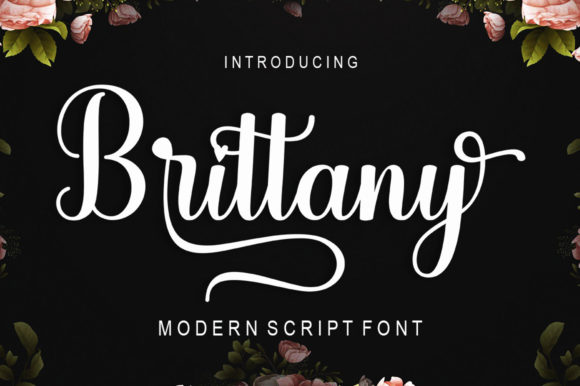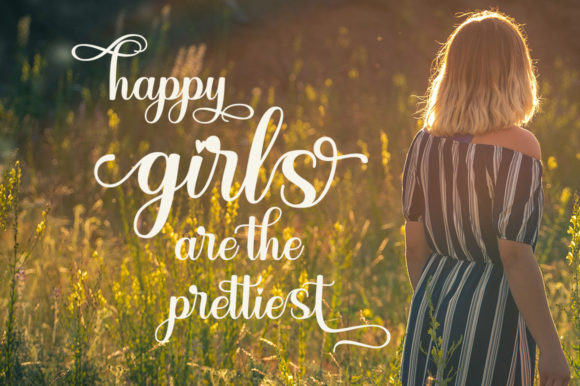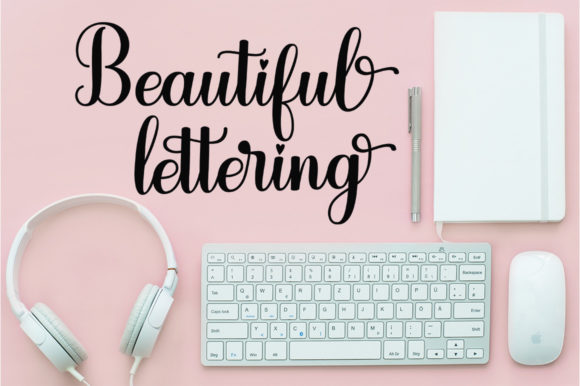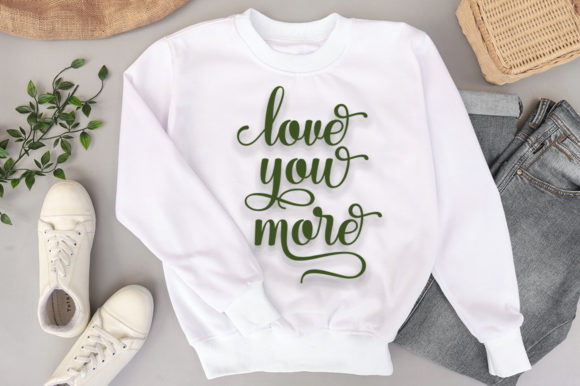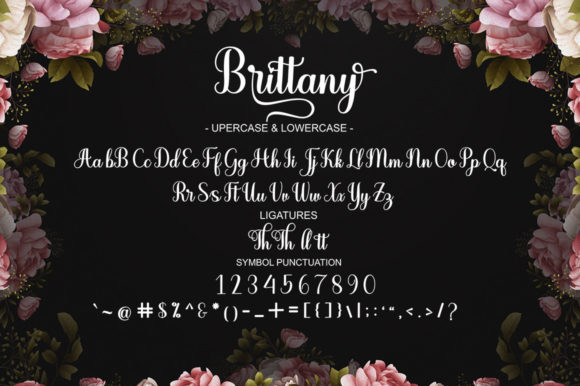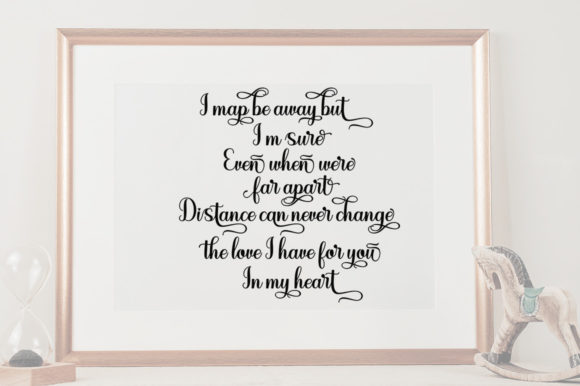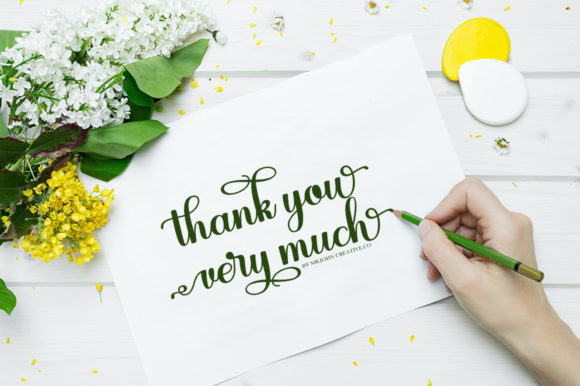
Brittany Font
About Brittany Font
Brittany is a modern handwritten font, featuring well balanced characters. This font is neatly crafted and highly detailed.